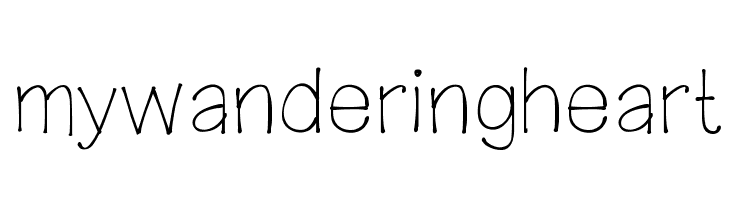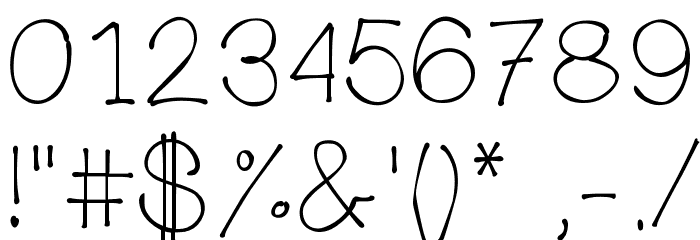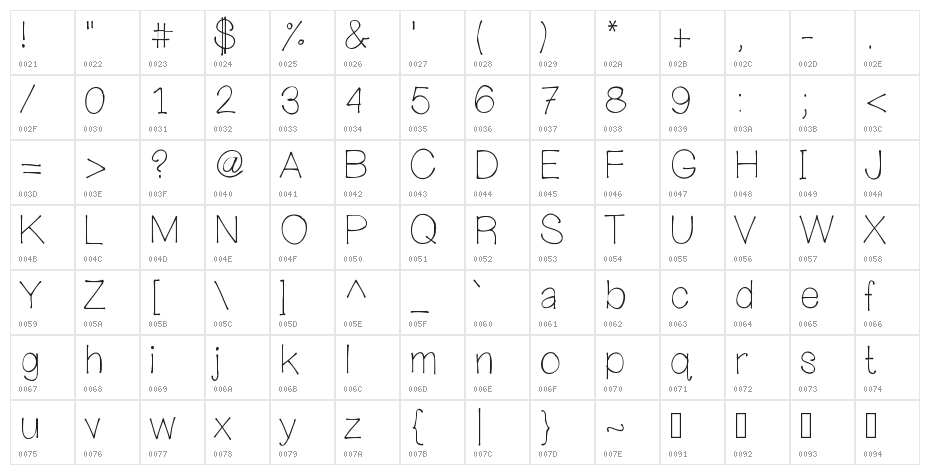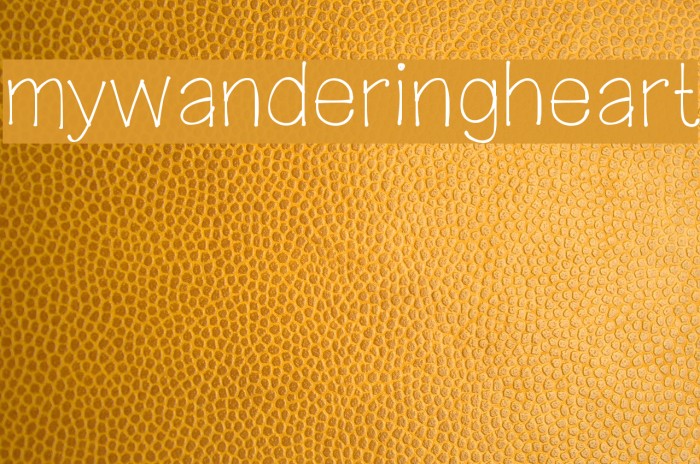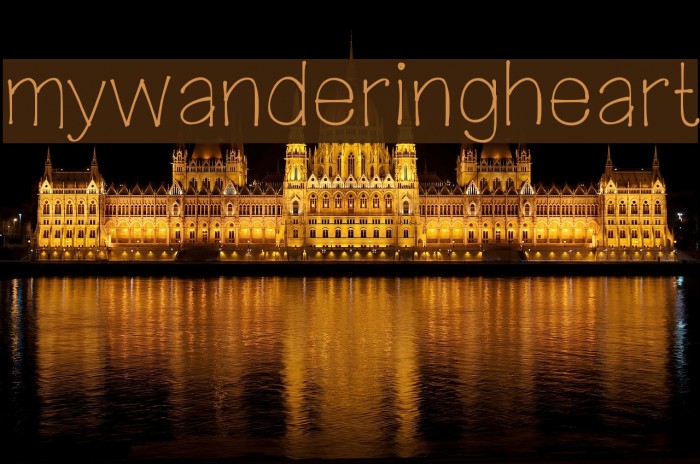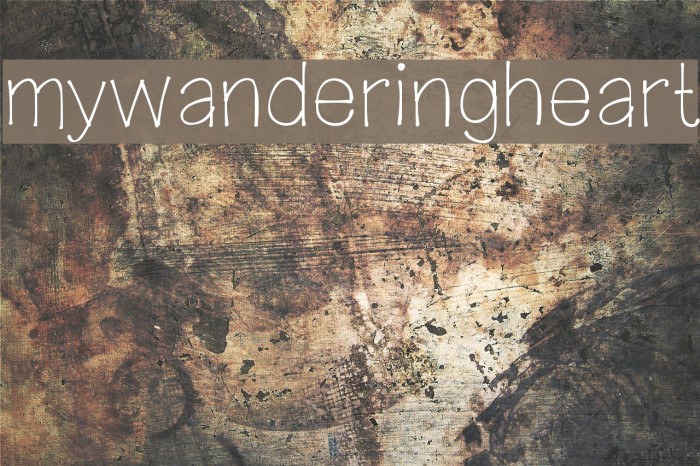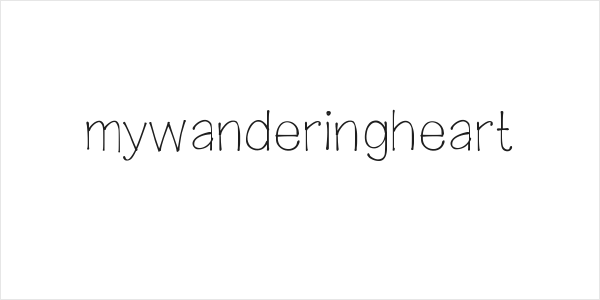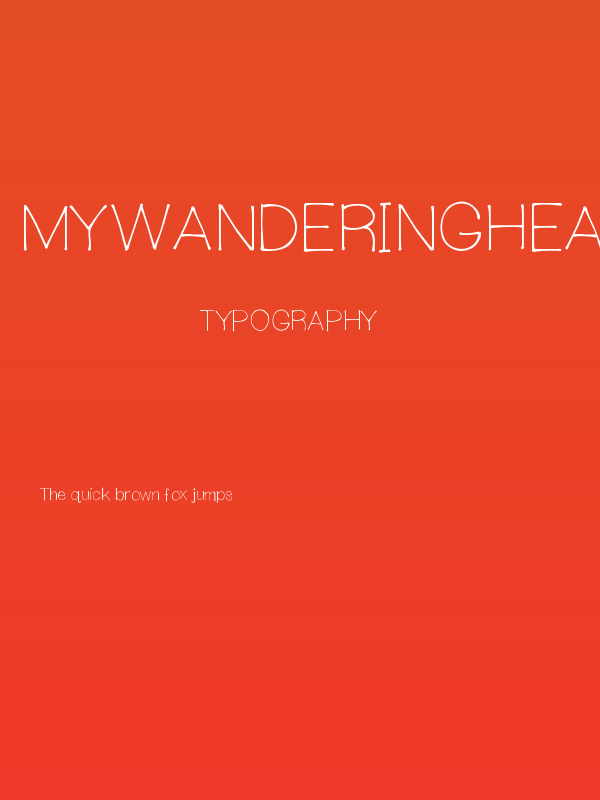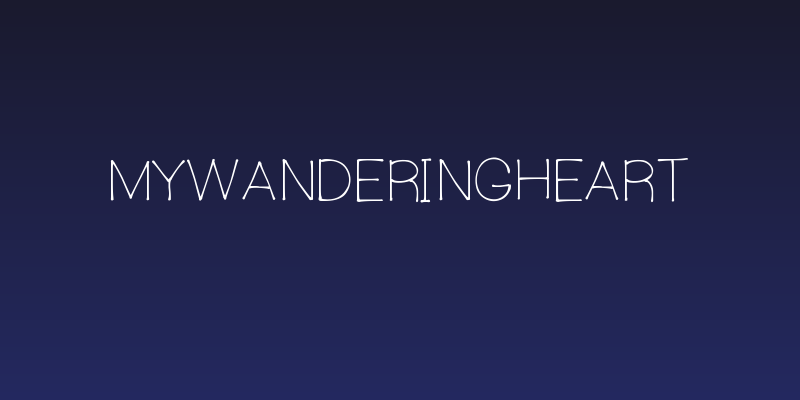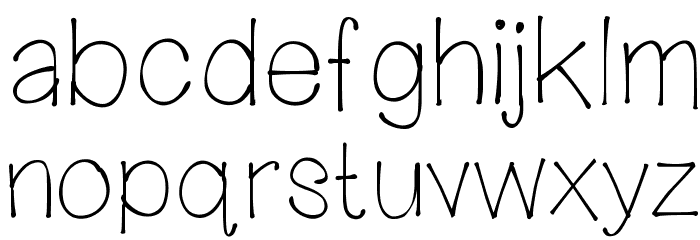
mywanderingheart Font
mywanderingheart Description
This font features a playful and whimsical handwritten style, characterized by its irregular strokes and casual appearance. The letters are slightly uneven, giving it a charming and personal touch. The uppercase letters are tall and narrow, while the lowercase letters maintain a consistent flow with rounded edges. Numbers and special characters follow the same playful aesthetic, making the font versatile for creative projects. The overall look is friendly and approachable, suitable for designs that require a personal or informal tone.
| Proposed Projects | Ideal for greeting cards, children's books, personal blogs, and creative branding projects. |